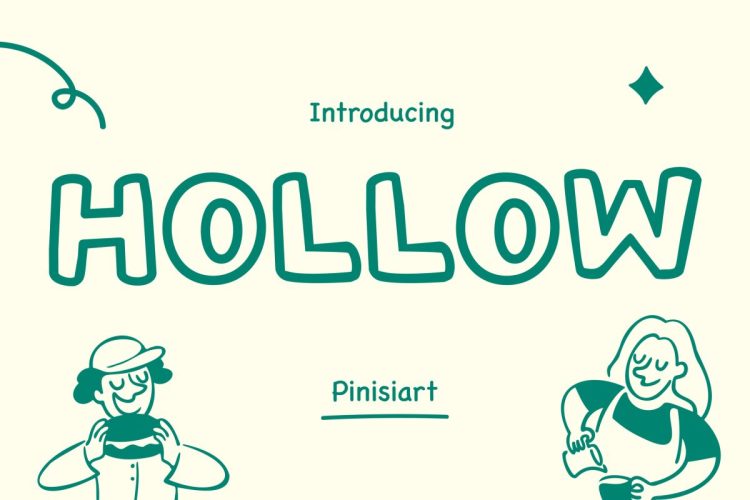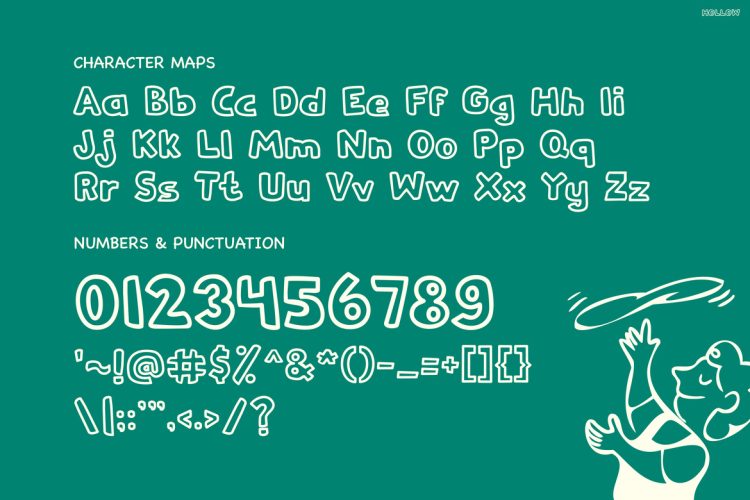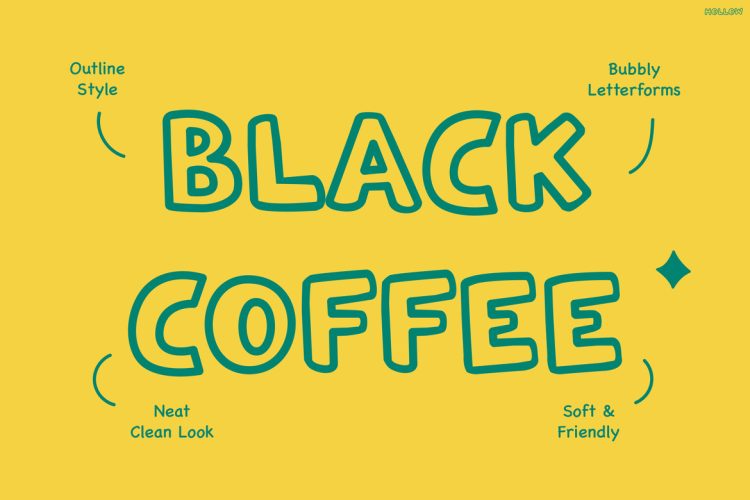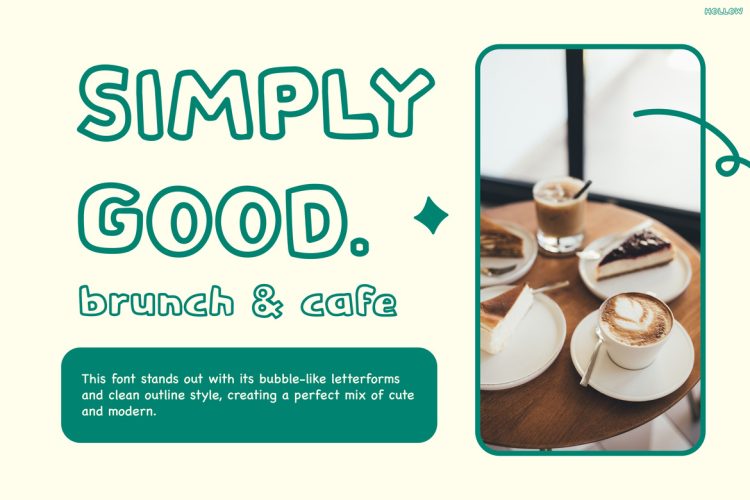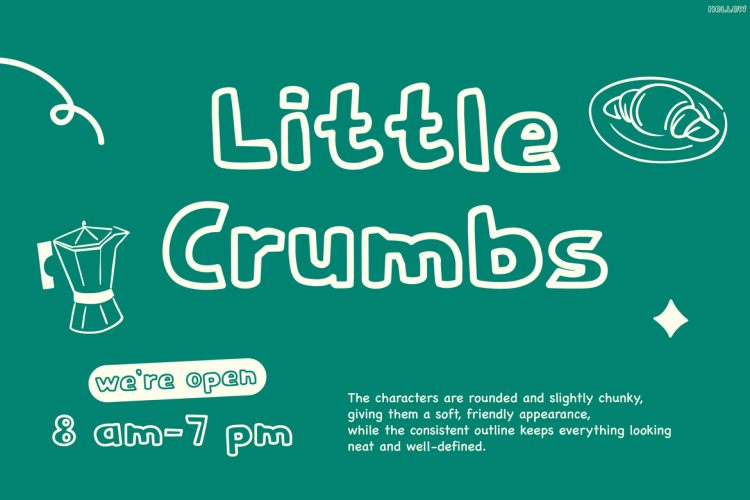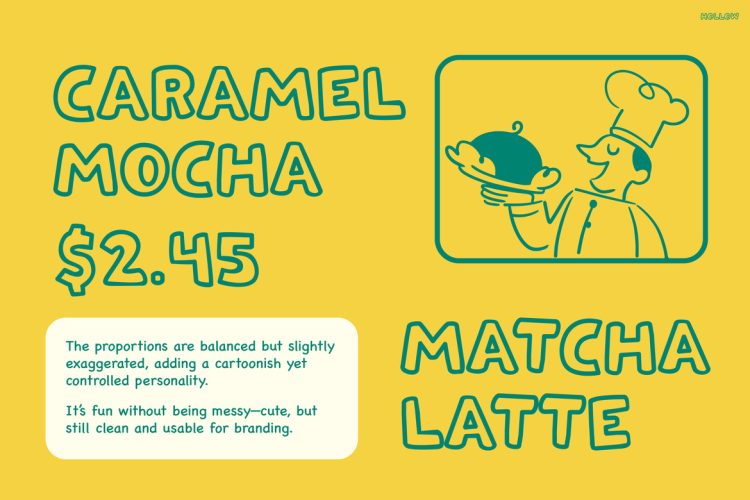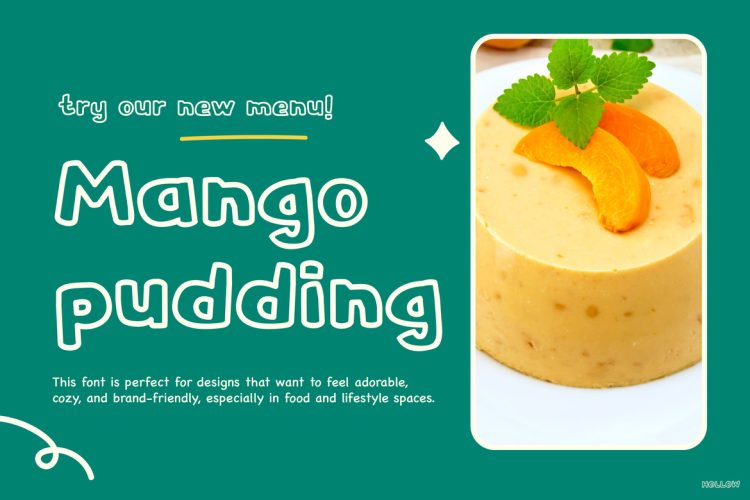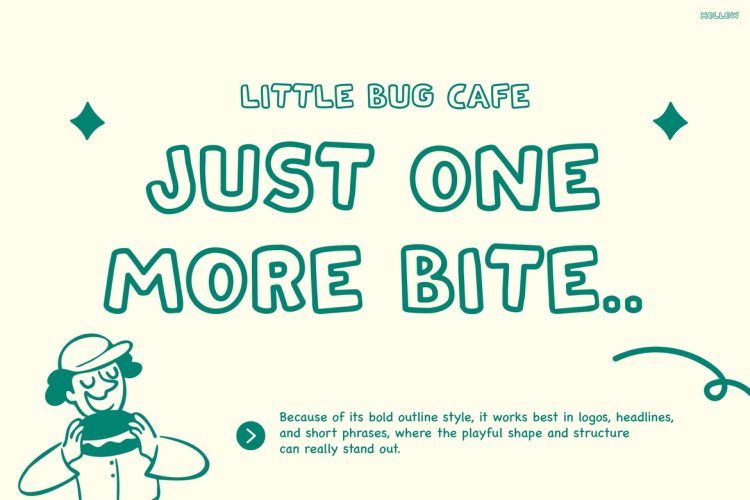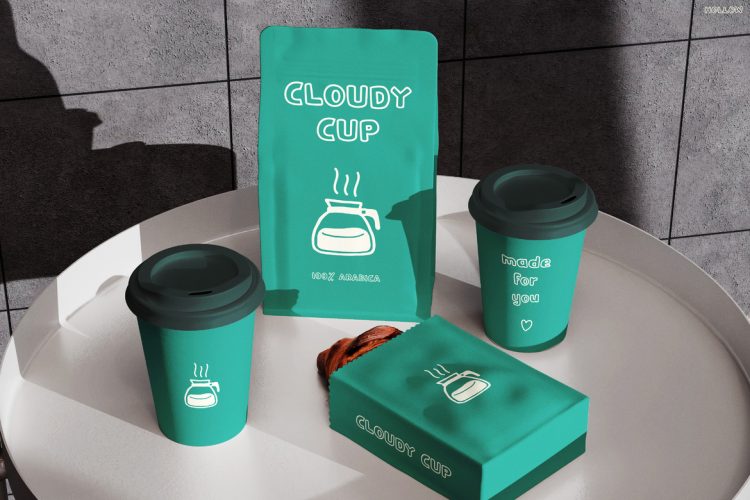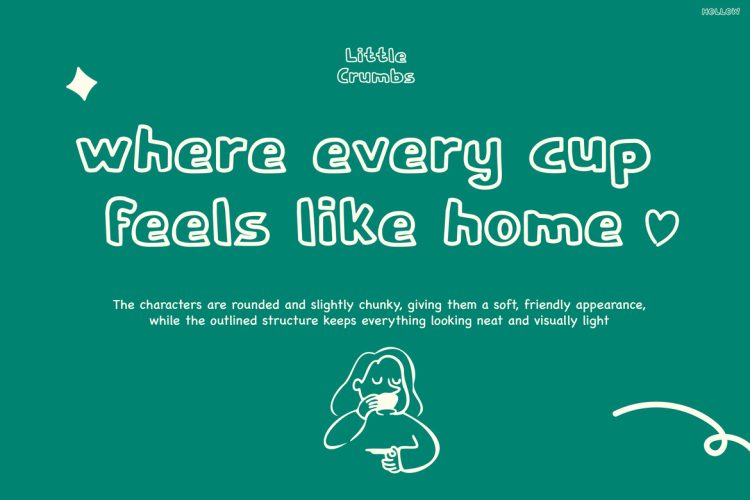
HOLLOW โ Cute Outline Bubble Font
Kids Font Hollow is a charming outline-style typeface that combines playful bubble shapes with a clean, minimal aesthetic. Moreover, its hollow letterforms create a light and airy feel that instantly looks fun yet modern. In addition, the rounded edges and smooth curves give it a soft, friendly personality that feels warm and approachable. Not only is it visually unique, but it also remains highly readable across different layouts. As a result, this font perfectly balances cute design with practical usability for both digital and print projects.
Kids Font Hollow delivers a cozy, cheerful vibe that fits beautifully with lifestyle, cafรฉ, and kids-themed visuals. For instance, it pairs perfectly with menu designs, product packaging, social media posts, and branding materials. Furthermore, its outlined style allows for creative layering, coloring, and customization, making each design feel more dynamic. Because of this, it works great for modern minimal concepts while still keeping a playful twist. In short, Hollow transforms simple text into something soft, stylish, and full of personality.
This font is ideal for designers, small business owners, and content creators who want a clean yet playful look. In particular, it suits cafรฉ branding, kids products, dessert shops, stationery, and aesthetic social media content. Additionally, itโs perfect for anyone aiming to create warm, friendly, and visually engaging designs. Therefore, whether you’re building a brand identity or crafting daily content, Hollow helps you communicate with charm and clarity.